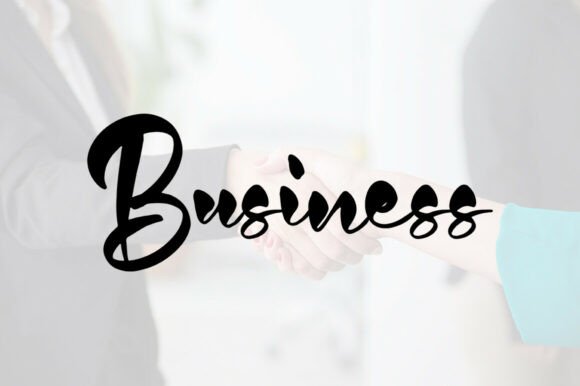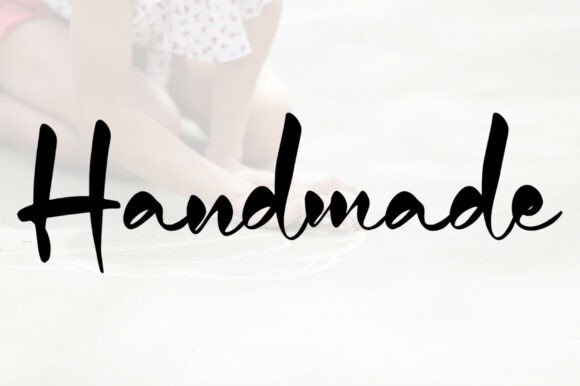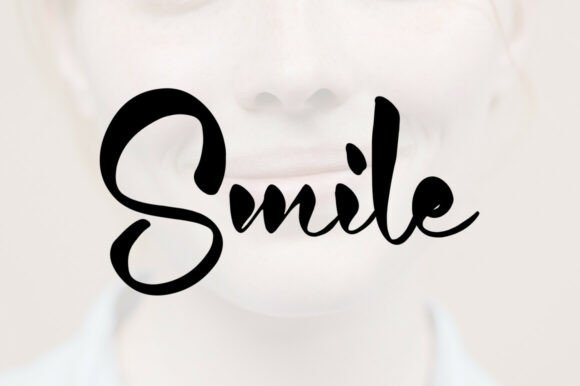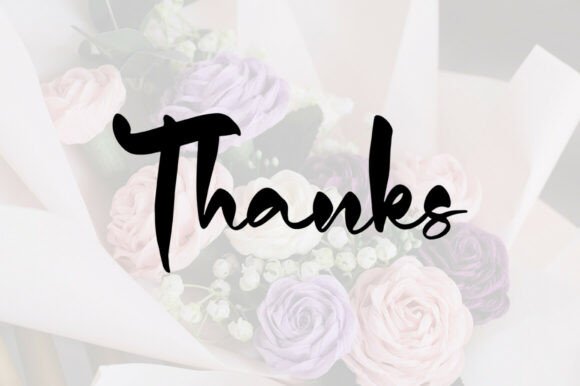
The Elegance of Garland Font: A Designer’s Delight
I’ll never forget the time I was working on a wedding invitation project, and my client asked for a font that would make their special day feel like a fairytale. I scoured the internet, tried countless fonts, but nothing seemed quite right. That was until I stumbled upon the stunning Garland Font. With its stylish and elegant handwritten touch, it was love at first sight! 💕
A Personal Review of Garland Font
As a designer, I’m always on the lookout for fonts that can elevate my projects. Here’s my honest review of Garland Font:
- ✨ Elegant and sophisticated: Garland Font is perfect for designs that need a touch of luxury and refinement.
- 💕 Versatile: From wedding invitations to business cards, this font can be used for a wide range of design projects.
While Garland Font is an amazing font, there are a few things to keep in mind:
- ⚠️ Legibility at small sizes: Like many script fonts, Garland Font can be a bit tricky to read at very small sizes. Make sure to test it out before finalizing your design.
- 🤔 Pairing with other fonts: As with any script font, it’s essential to choose a complementary font for body text or headings. Experiment with different combinations to find the perfect pairing.
A Practical Guide to Using Garland Font
Now that I’ve raved about Garland Font, let’s dive into how to use it in different design platforms:
The Backstory of Garland Font
While I couldn’t find any information on the exact origin of Garland Font, it’s clear that it was designed with love and care. The creator of this font likely drew inspiration from traditional calligraphy and handwritten scripts, aiming to create a font that would bring a touch of elegance to any design.
Q: Is Garland Font suitable for body text?
A: While Garland Font is beautiful, it’s best suited for headings, titles, or short paragraphs. For body text, consider using a more legible font.